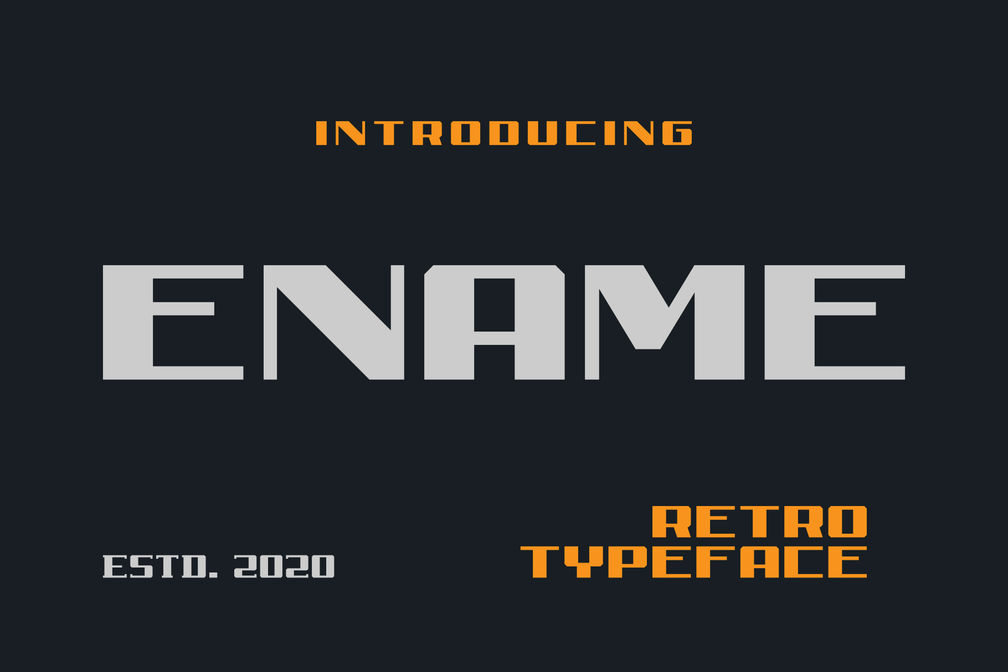
Ename Retro Sans
Inspired by old vehicles, motorbikes, workshops and others related to machines and vehicles.
Ename retro display fonts are perfect for logos, label designs, product designs, posters, flayer and just about anything.